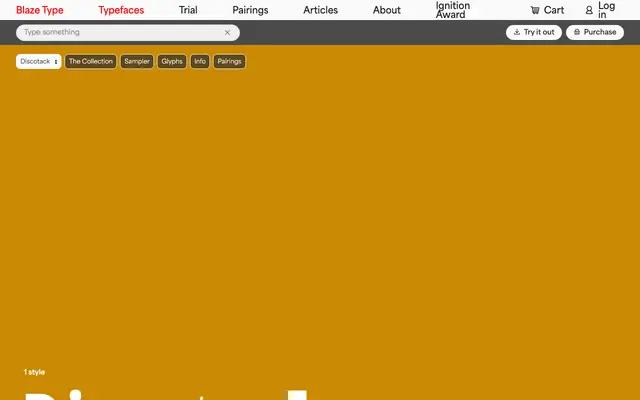
Discotack
Blaze Type · Brian Dove · 2023
A reverse contrast slab serif drawn from Art Nouveau curves and the uppercase forms of Benguiat's Discotheque, designed for headlines and logos.
Brian Dove's single-weight display face fuses the flowing organic strokes of Art Nouveau with the reverse contrast structure of 1960s disco lettering, taking Ed Benguiat's Discotheque as its starting point while softening the genre's characteristic hard angles. Set in all caps, the letterforms create a near-flat top and bottom to each line; introduce the lowercase and a wavy, undulating texture emerges across the text block. Coverage extends across Latin European languages with a thorough glyph set including extended diacritics.
Discotack is explicitly described as a reverse contrast slab serif, where horizontal strokes are thicker than verticals, combined with organic Art Nouveau-influenced curves rather than the geometric rigidity typical of the genre.